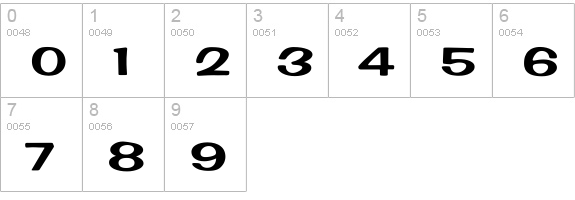
Impressed Ex font is a stunning display font that will leave you in awe. Its bold and captivating design is sure to make a lasting impression on any project. With its clean lines and carefully crafted curves, this font exudes elegance and sophistication. What sets Impressed Ex font apart is not only its exceptional design but also its availability. This font is absolutely free, making it accessible to anyone looking to add a touch of class to their work. Whether you're a graphic designer, a blogger, or a student, this font is the perfect addition to your creative arsenal. Impressed Ex font is designed to be versatile and adaptable. It can be used for a wide range of projects, from logos and branding to headings and titles. Its distinct and eye-catching letters make it ideal for grabbing attention and creating a memorable visual impact. Downloading Impressed Ex font is quick and easy. Simply visit FontsMarket.com, where you can freely access and download this exceptional font. Don't miss out on the opportunity to elevate your designs with the elegance and style that Impressed Ex font brings. Get your hands on this amazing font today and let your creativity soar.